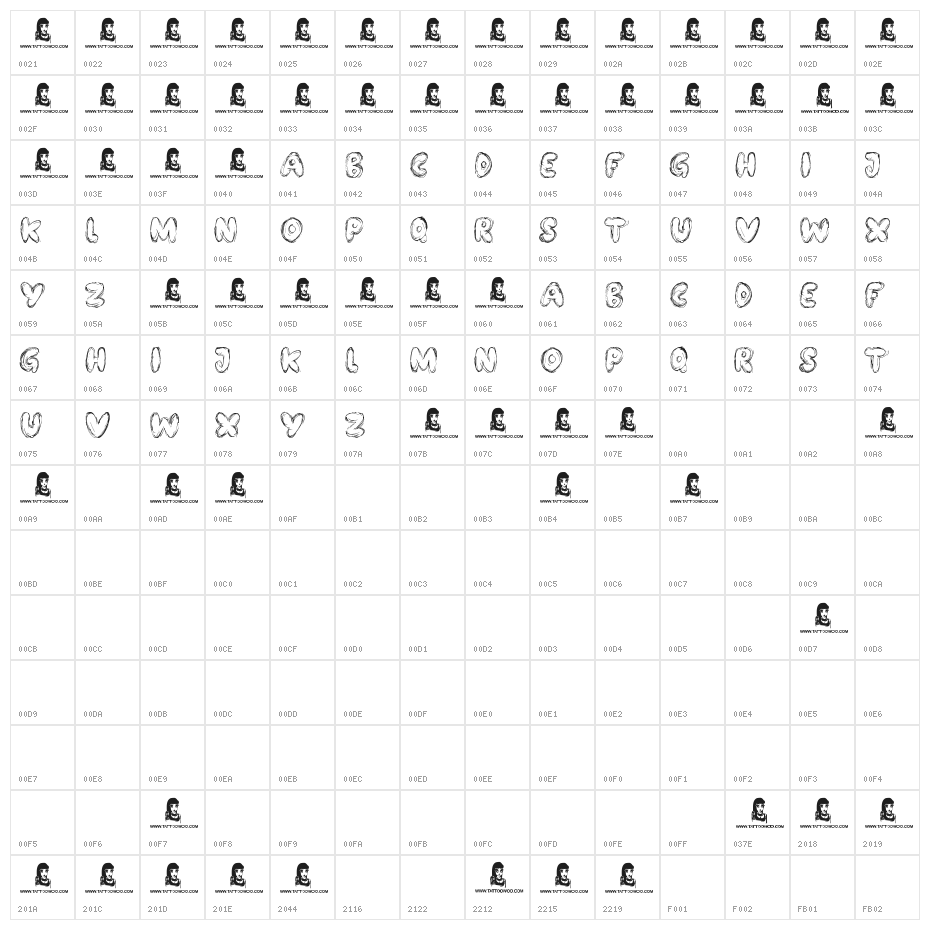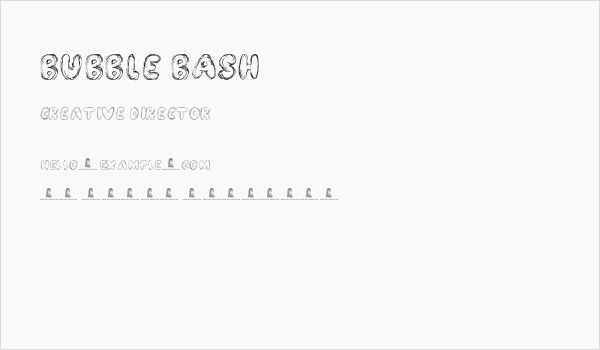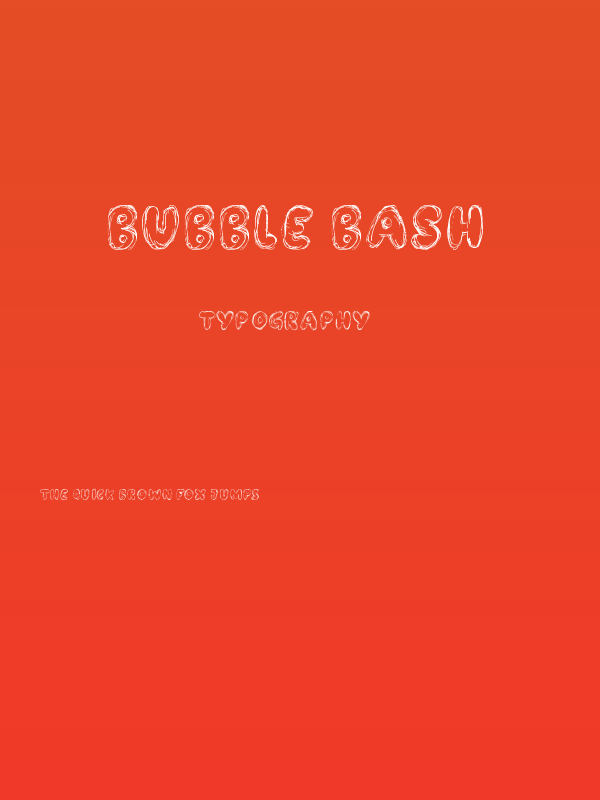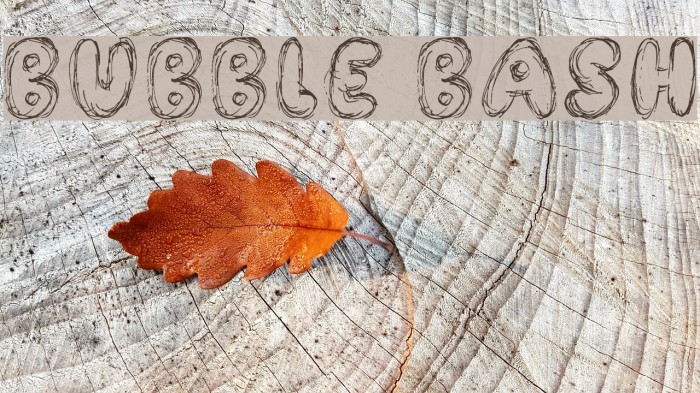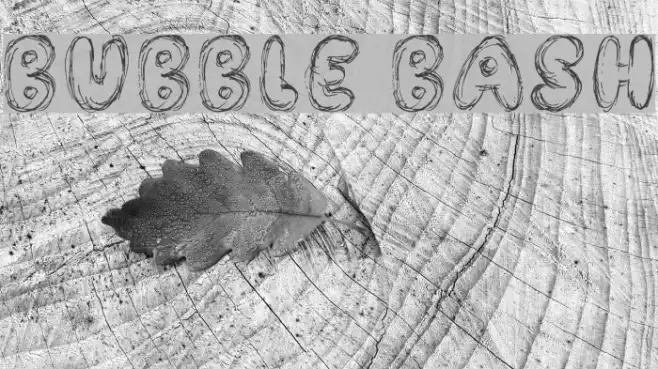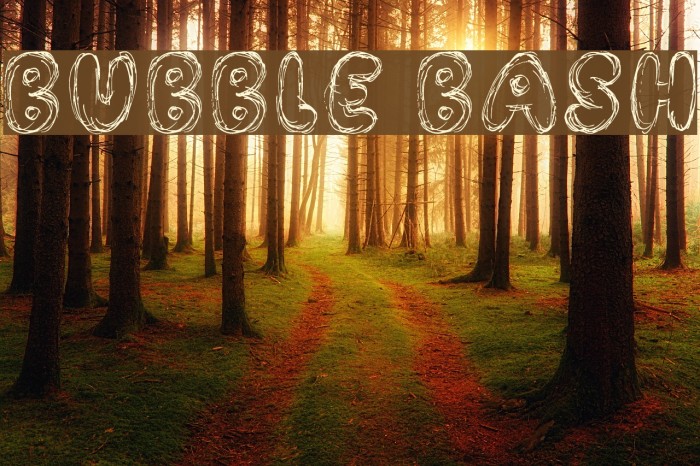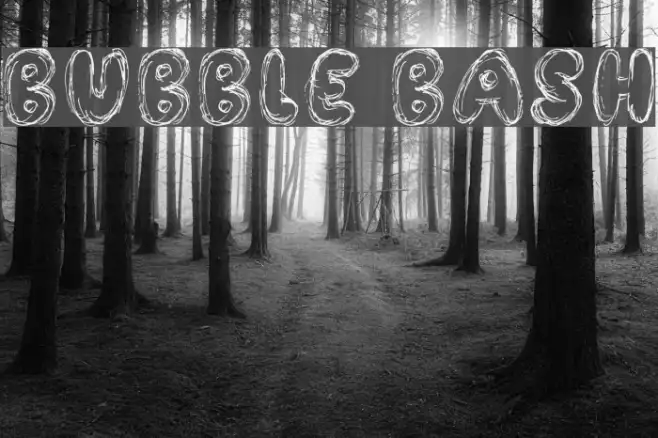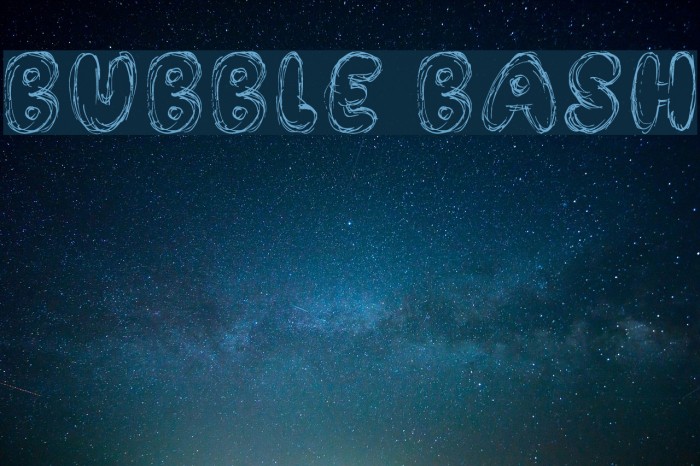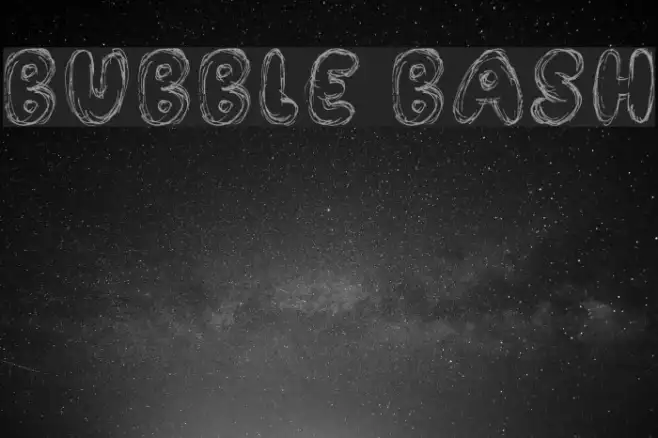
Bubble Bash Font
Bubble Bash Description
This font features a playful and whimsical style, characterized by its bubble-like, rounded letterforms. Each character appears as if it's been drawn with a single, continuous line, giving it a hand-drawn and organic feel. The strokes are uneven, adding to the casual and informal appearance. The font's unique texture and outline create a sense of movement and energy, making it stand out in any design. It's perfect for projects that require a fun and lively touch, such as children's book covers, party invitations, or playful branding materials.
| Proposed Projects | Ideal for children's books, party invitations, playful branding, and creative posters. |